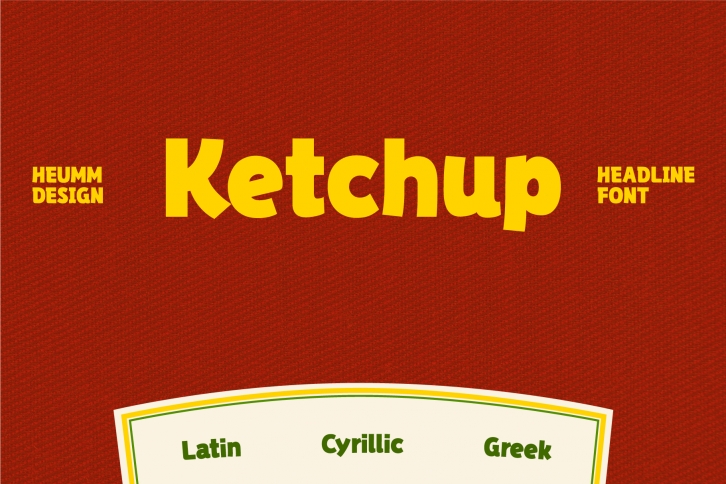
HU Ketchup is a headline font that has waving strokes like a script.
This unique display font can be used to stress out something important, and it works great for artwork that has a retro vibe. It also looks great on food packaging or other creations.